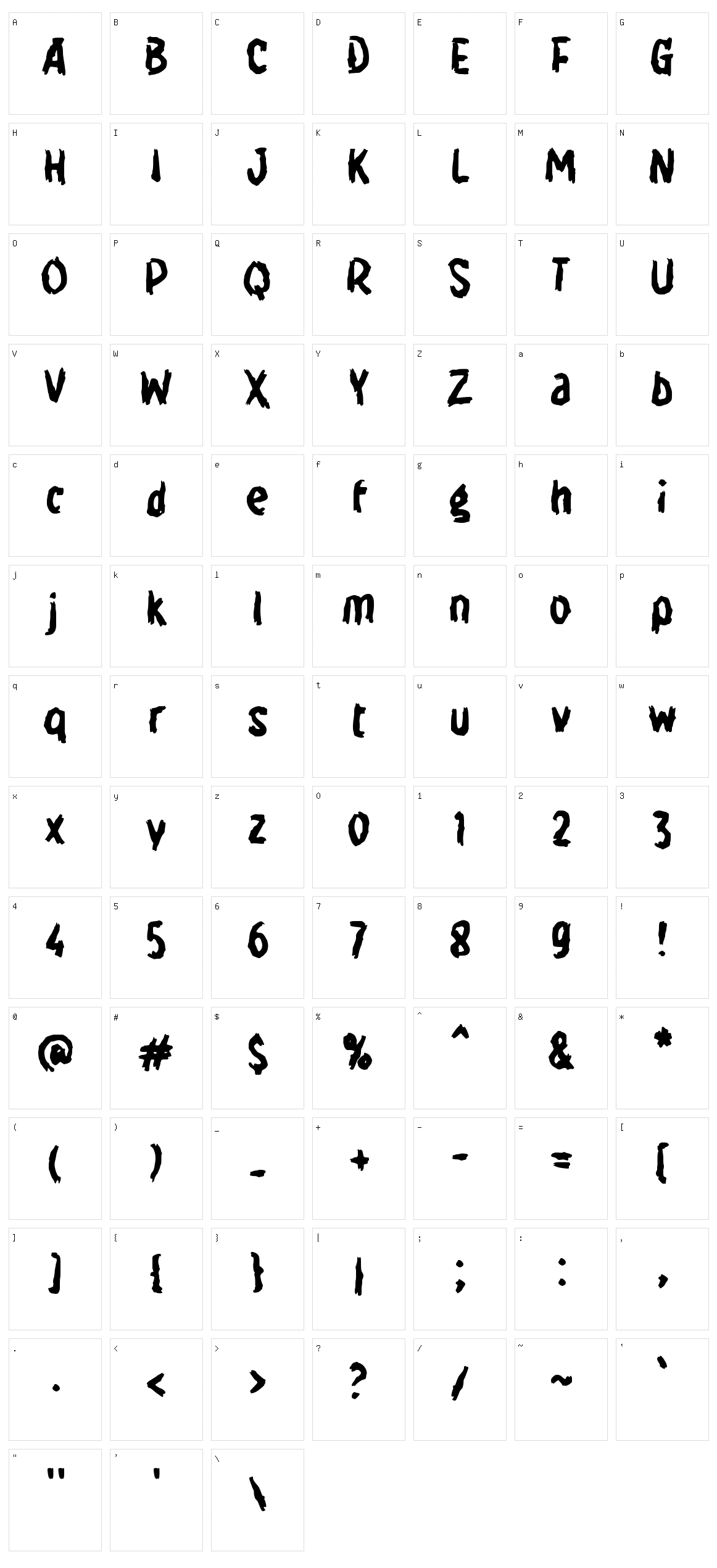
The free font h Hidan is carefully designed by wep, showcasing a thoughtful balance of creativity and usability and falls under the Horror font style. When you download the ZIP file, it contains only 21.19 KB of font files, making it lightweight and quick to download. Please review the license details below to understand permitted usage and distribution rights. If license information is not available, we recommend using this font for personal projects only or contacting the author directly for commercial usage permissions.